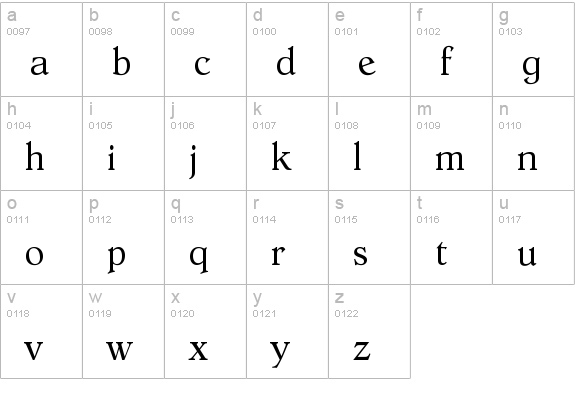
Hoboken-Light is a refined, elegant variant in the Hoboken typeface family \xE2\x80\x94 well suited to elegant body text, refined sub-headings, and luxury branding.
Hoboken-Light font is a sleek and modern typeface that exudes sophistication and elegance. With its clean lines and subtle curves, this font is perfect for adding a touch of class to any design project. Whether you're working on a website, logo, or print materials, Hoboken-Light font is sure to make a statement. The best part? This beautiful font is available for free download at FontsMarket.com. So you can elevate your designs without breaking the bank. Don't miss out on the opportunity to enhance your projects with the timeless beauty of Hoboken-Light font. Download it today and see the difference it can make!